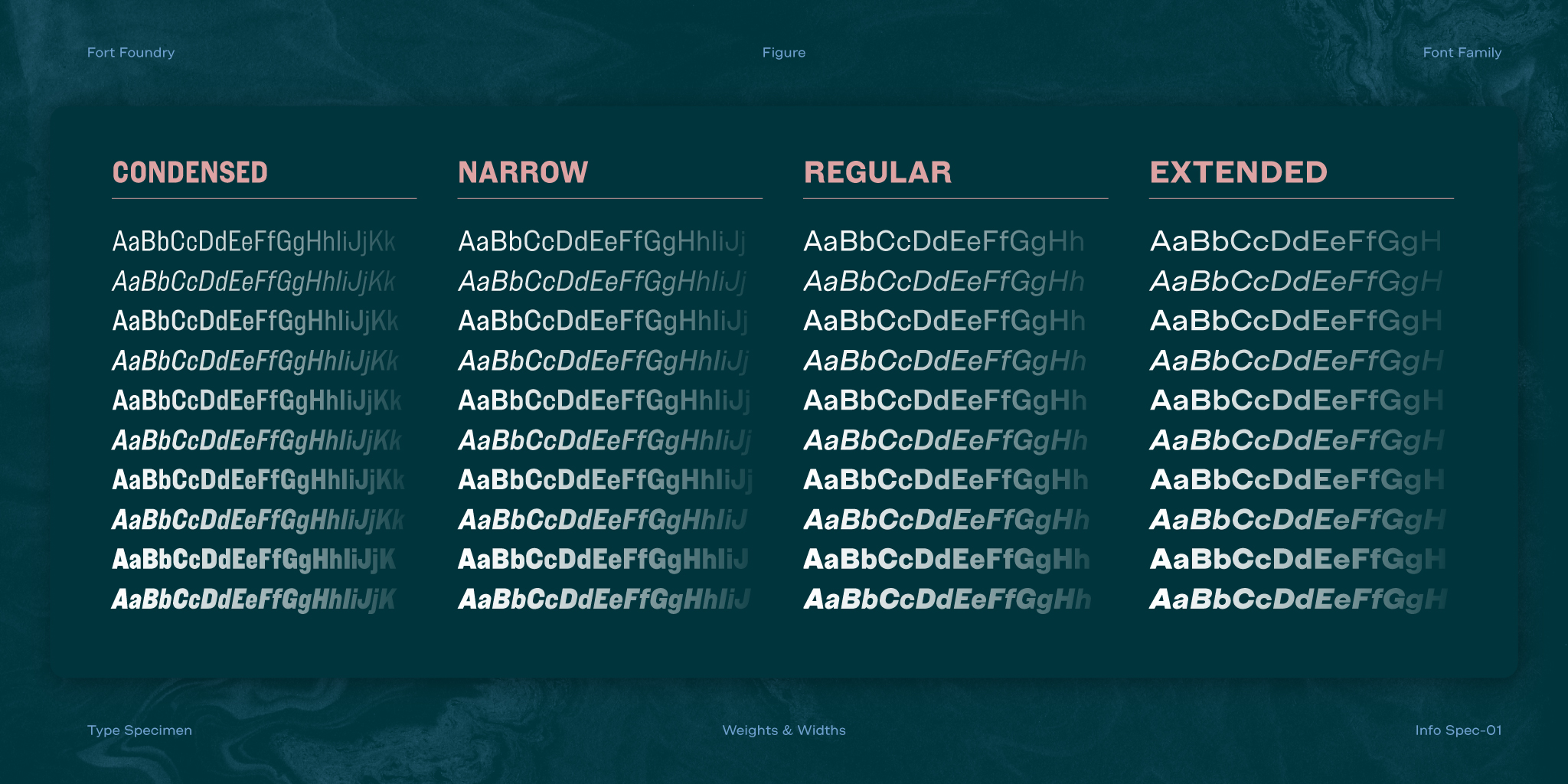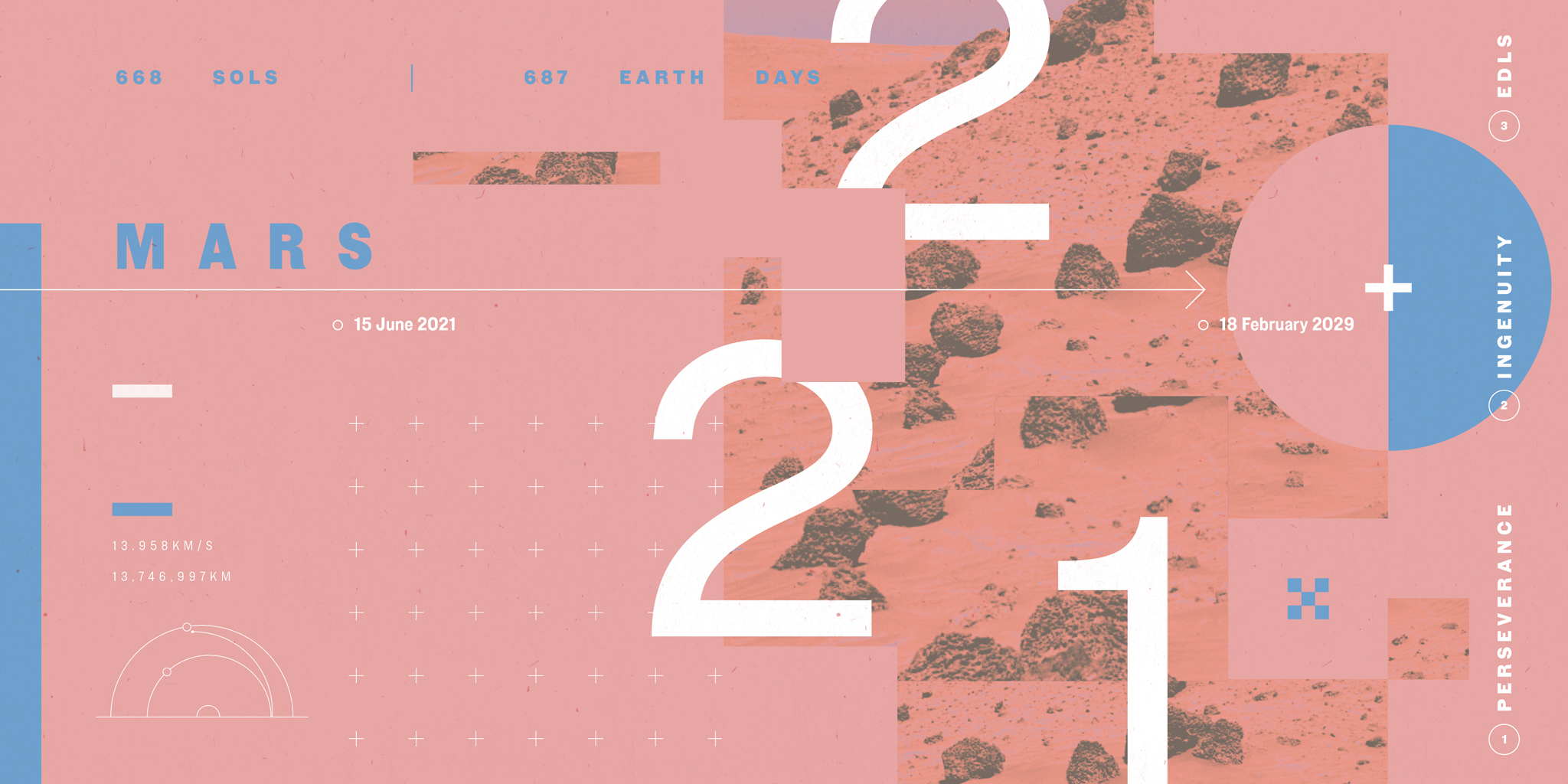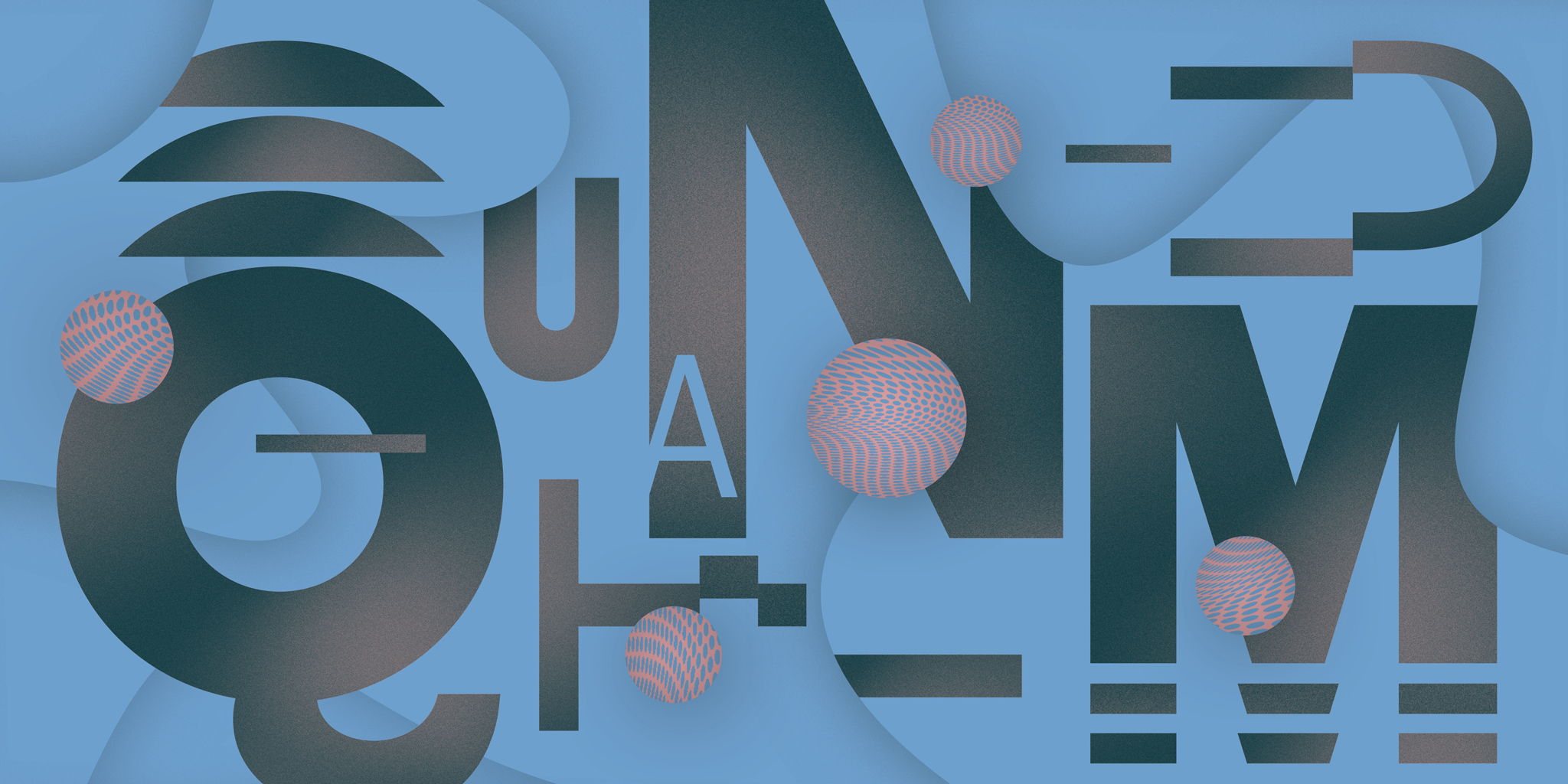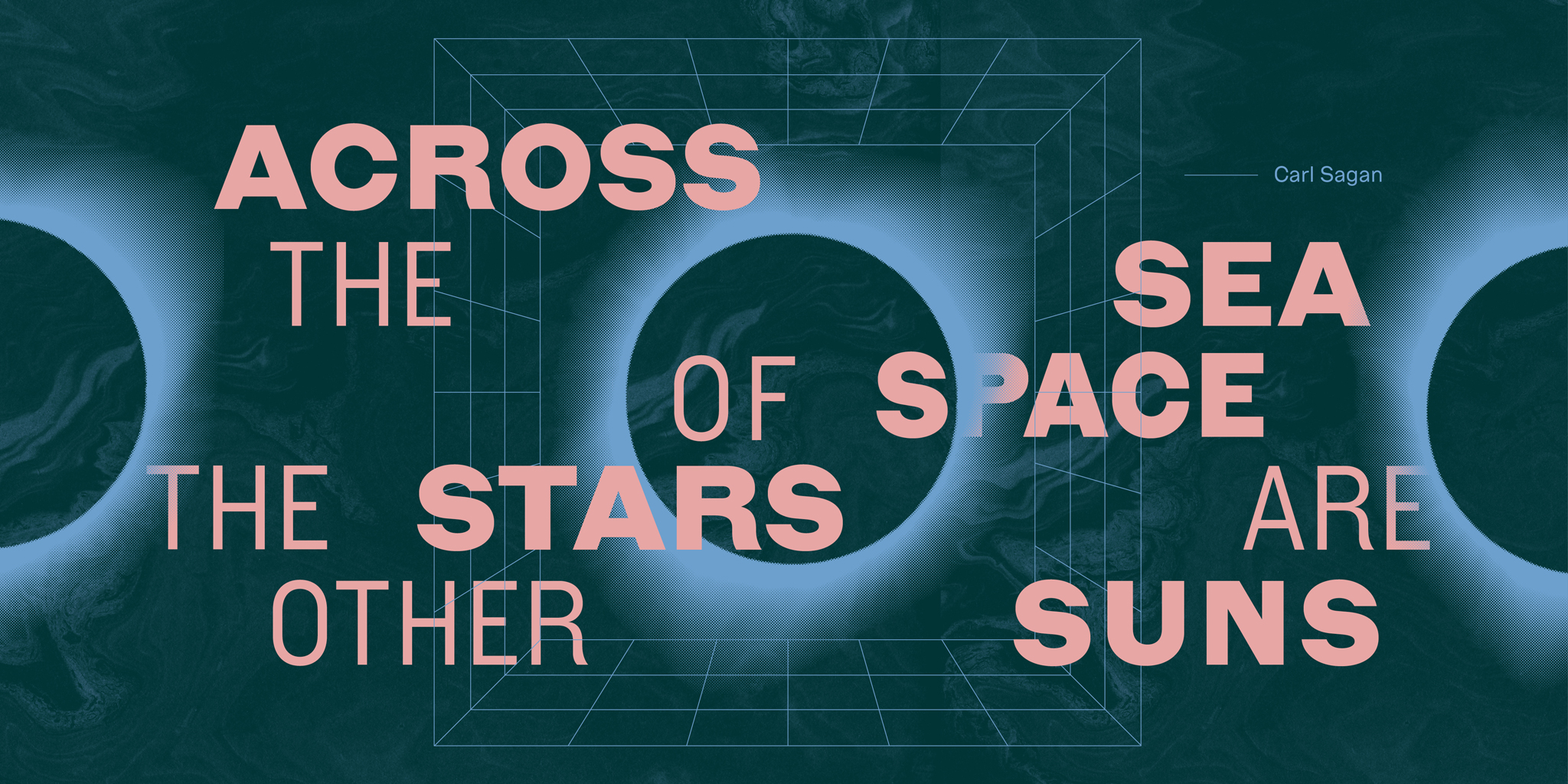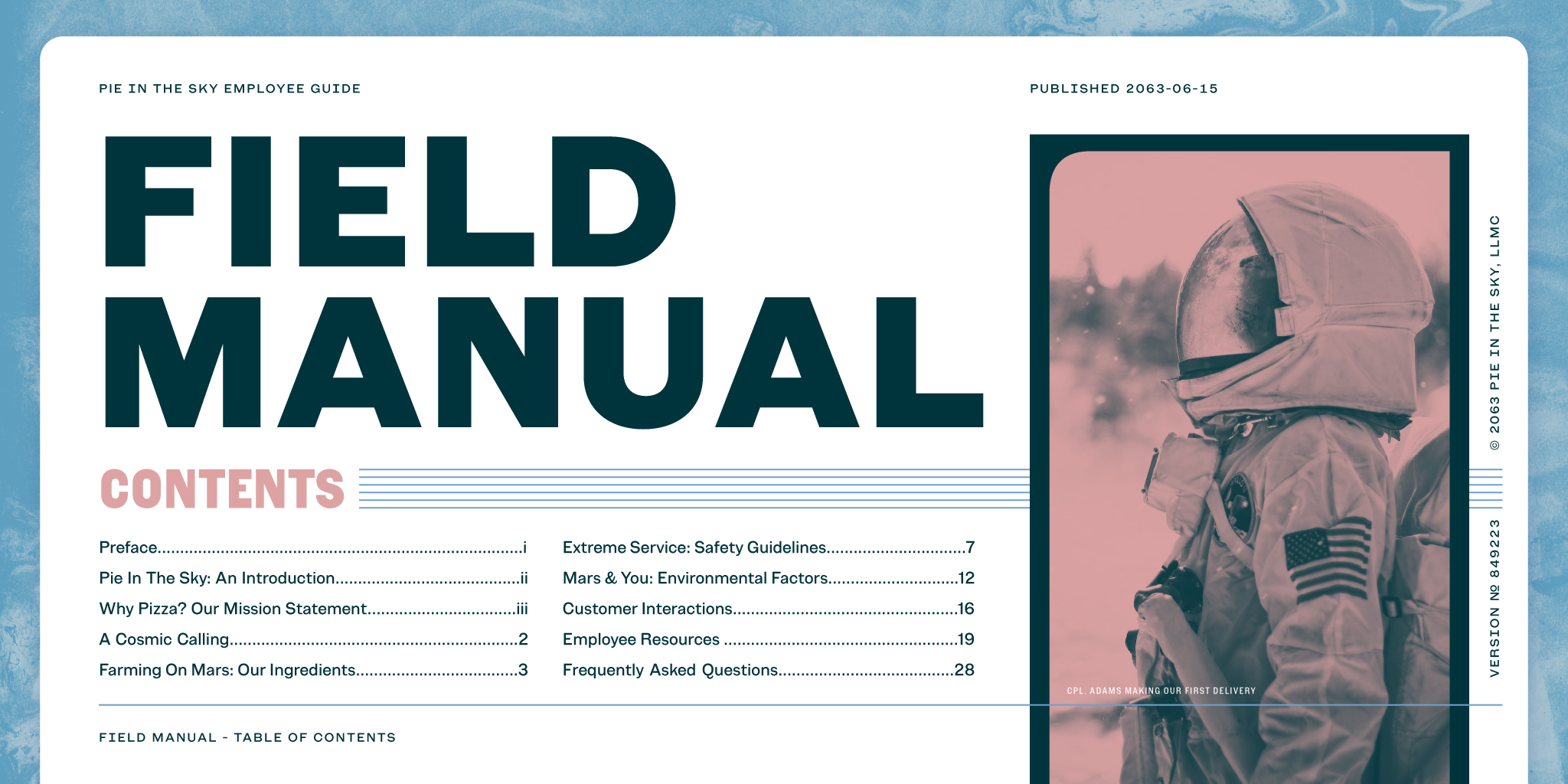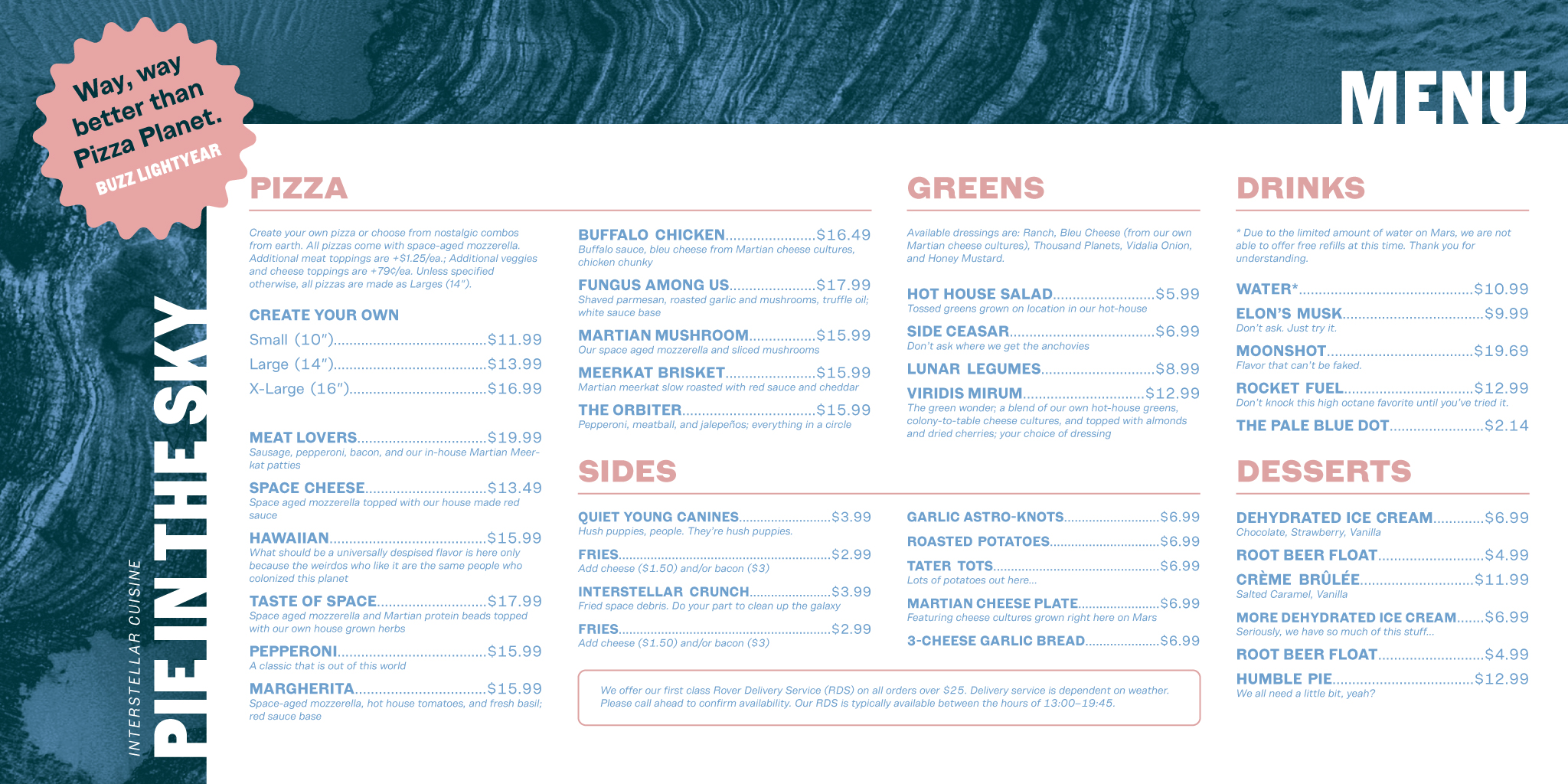
Figure
Sans • 40 Styles
Case-Sensitive Forms
Italics
Tabular Figures
Work hard. Play hard. Go Figure.
We like to call Figure our “quirkhorse”. It’s got all the makings of a workhorse font family while still bringing the kind of quirks you’d want in a revival. With its roots in the character and idiosyncrasies of 19th century gothic wood type, Figure brings warmth and charm wherever it goes.